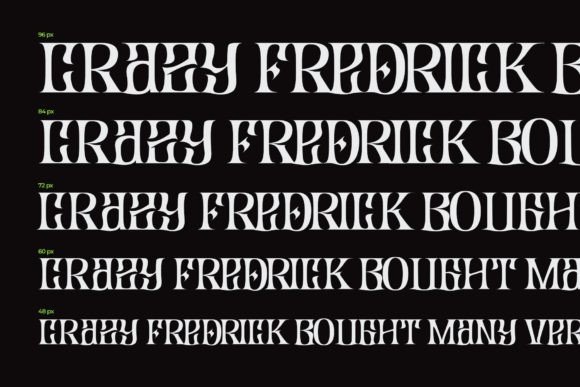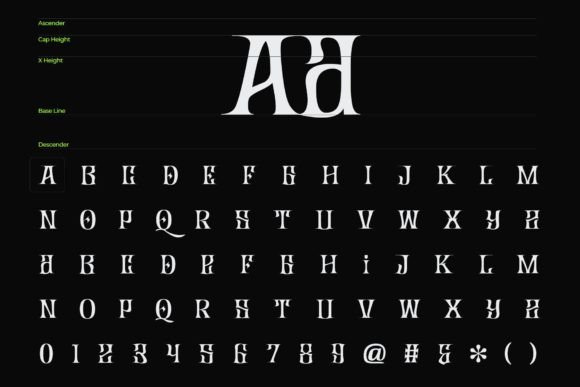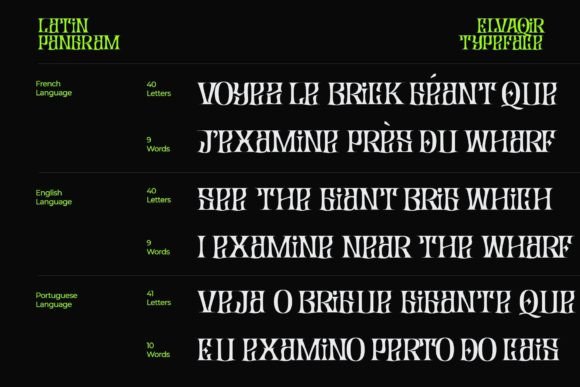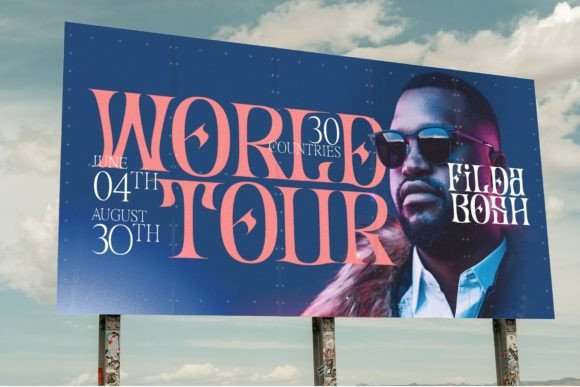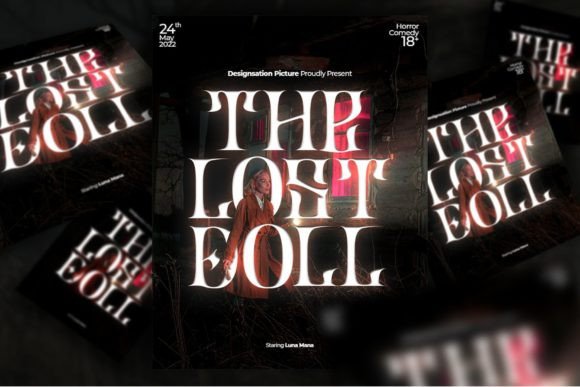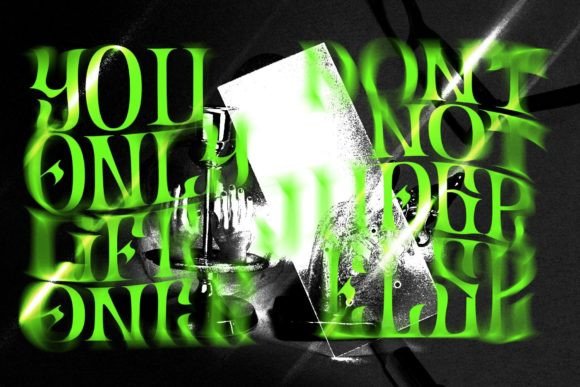
Unleash Your Creativity with Elvaqir Font: A Gothic, Rock and Roll, and Expressive Display Font
Are you tired of using the same old fonts for your designs? Do you want to add a touch of uniqueness and edginess to your creations? Look no further than Elvaqir Font, a Gothic, rock and roll, and expressive display font that’s sure to make your designs stand out. In this article, we’ll dive into the world of Elvaqir Font, exploring its features, benefits, and uses, and show you how to make the most of this exquisite and powerful font.
What is Elvaqir Font?
Elvaqir Font is a carefully crafted font that combines the mystery and elegance of Gothic typography with the boldness and energy of rock and roll. This unique blend of styles results in a font that’s both expressive and attention-grabbing, making it perfect for designers and crafters looking to add a touch of drama to their work.
Key Features of Elvaqir Font
So, what makes Elvaqir Font so special? Here are some of its key features:
- Gothic and Rock and Roll Inspiration: Elvaqir Font draws inspiration from the mystery and elegance of Gothic typography and the boldness and energy of rock and roll, making it a truly unique and eye-catching font.
- Expressive and Display: This font is designed to make a statement, with bold lines, sharp edges, and a confident attitude that’s sure to grab attention.
- High-Quality Design: Elvaqir Font is meticulously crafted with attention to detail, ensuring a high-quality design that’s both visually appealing and functional.
- Versatile: Whether you’re designing a logo, a poster, or a website, Elvaqir Font can be used in a variety of contexts to add a touch of drama and flair.
Benefits of Using Elvaqir Font
So, why should you choose Elvaqir Font for your designs? Here are some of the benefits of using this exquisite and powerful font:
- Stand Out from the Crowd: With Elvaqir Font, you can create designs that are truly unique and eye-catching, setting you apart from the competition.
- Express Yourself: This font is designed to be expressive and bold, giving you the freedom to convey your message with confidence and style.
- Save Time: With Elvaqir Font, you can create stunning designs in no time, thanks to its high-quality design and versatility.
- Professional Results: Whether you’re a professional designer or a crafter, Elvaqir Font can help you achieve professional-looking results that are sure to impress.
How to Use Elvaqir Font
Using Elvaqir Font is easy! Here are some tips to get you started:
- Pair it with Other Fonts: Elvaqir Font can be paired with other fonts to create a unique and visually appealing design.
- Play with Sizes: Elvaqir Font can be used in a variety of sizes, from large display fonts to smaller body text.
| Font Name | Elvaqir Font |
| Author | Designsation |
In conclusion, Elvaqir Font is a Gothic, rock and roll, and expressive display font that’s sure to make your designs stand out. With its unique blend of styles, high-quality design, and versatility, this font is perfect for designers and crafters looking to add a touch of drama and flair to their work. So why wait? Add Elvaqir Font to your favorite creations today and watch how it transforms them into something truly special.
Whether you’re a seasoned designer or just starting out, Elvaqir Font is a must-have in your font collection. So go ahead, unleash your creativity, and see what amazing designs you can create with Elvaqir Font!